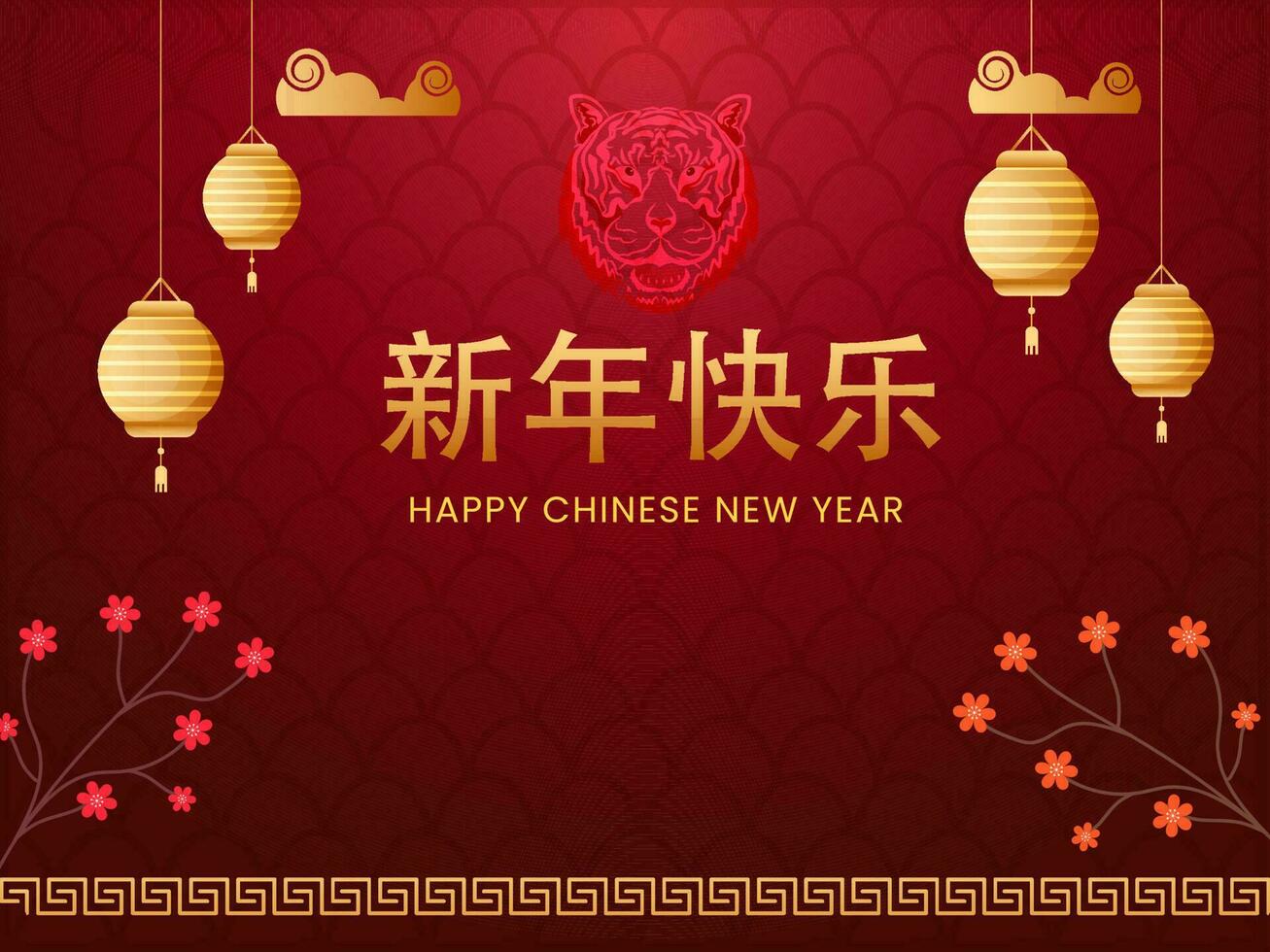
Golden Happy New Year Font In Chinese Language With Tiger Face, Lanterns Hang And Sakura Flower Branches On Red Deco Half Circle Pattern Background. Pro Vector